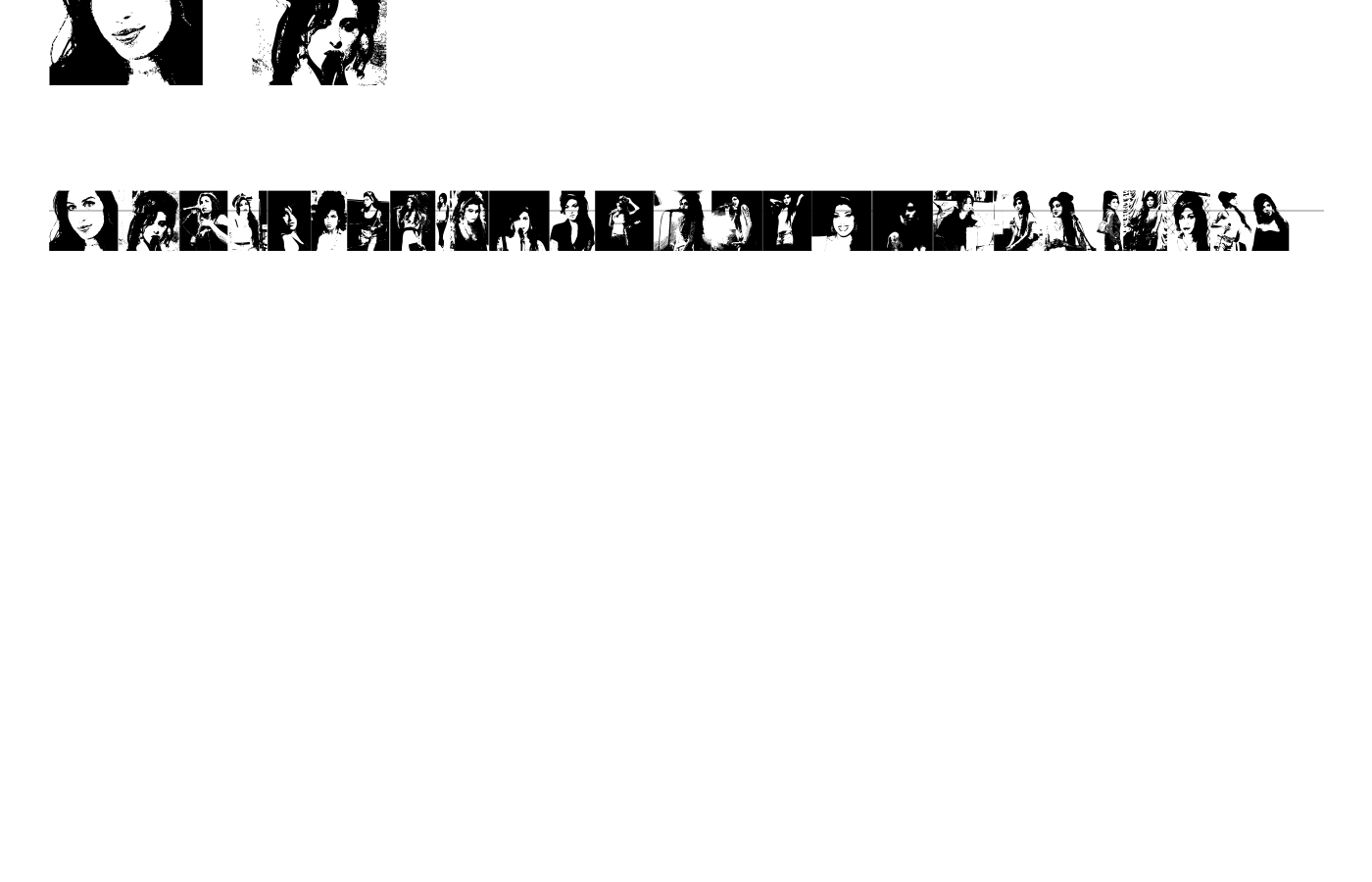
AmyBats1 is an unconventional and artistic font that features photographic portraits as its characters, creating a highly distinctive and visual style. Rather than traditional letterforms, each glyph is composed of a black-and-white image of a woman, making this font ideal for creative projects that seek a bold, avant-garde statement. This font works best in striking headlines, posters, or branding that embraces individuality and visual storytelling rather than standard text readability.
AmyBats1 Font
About AmyBats1 Font